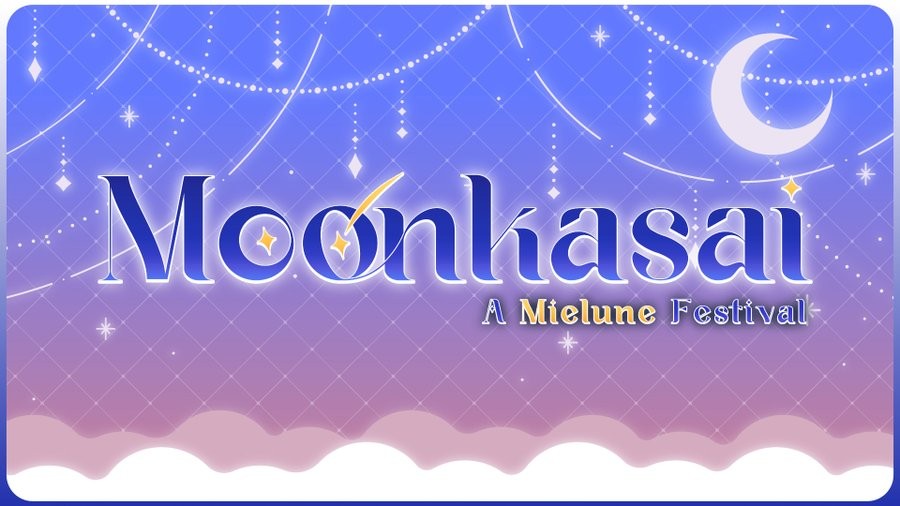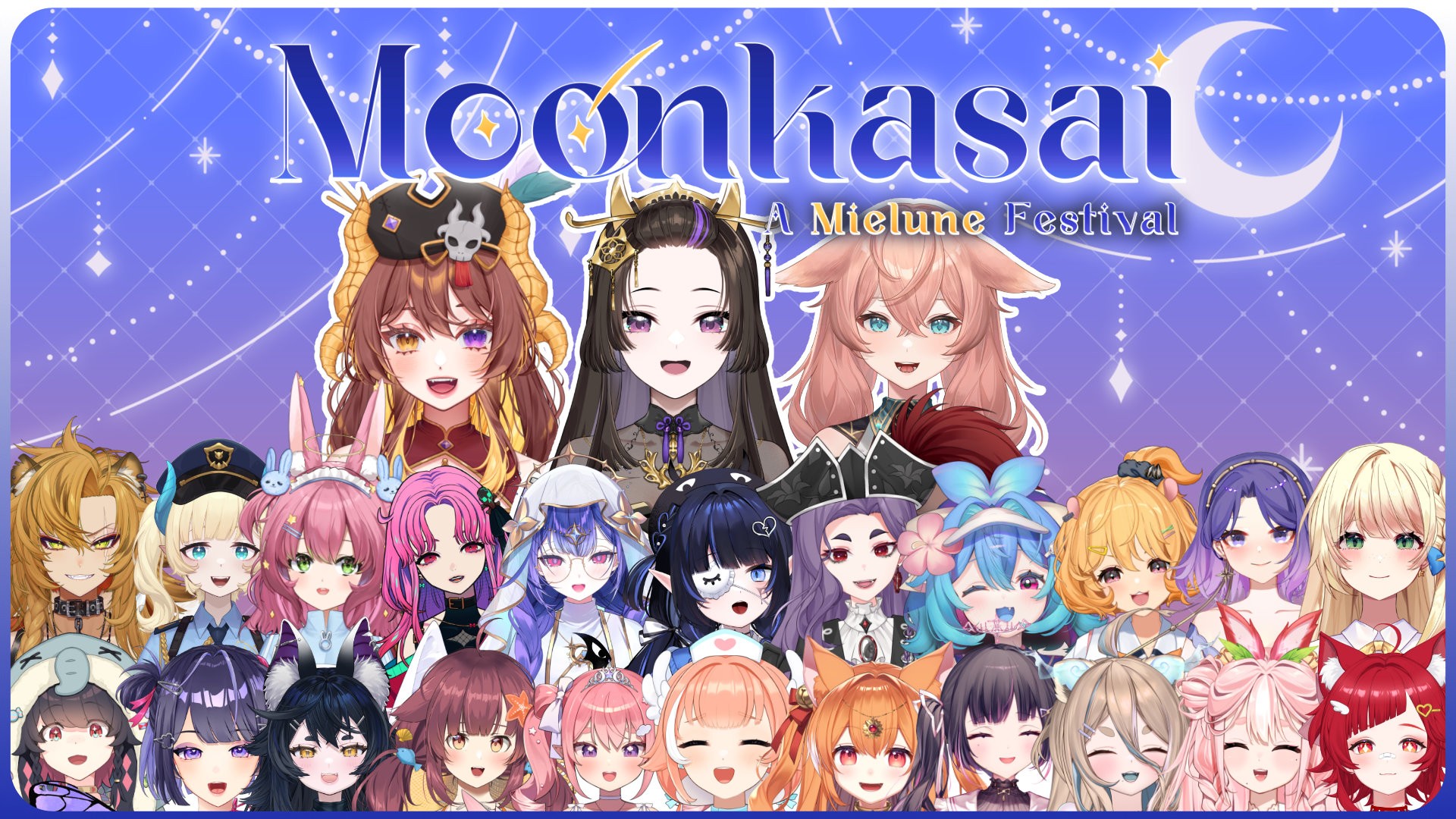
Cover Font in Used - Moonkasai
FONT IN USED: SUIKA
Yuno Hanaki explores visual expression through a blend of illustration, color, and digital composition—creating works that feel both playful and atmospheric. Each piece carries a distinct personality, balancing spontaneity with a refined visual rhythm.
Set in Suika, the typography enhances this expressive direction with a soft, rounded character and vibrant tone—supporting creative visuals while maintaining clarity across digital media.
Yuno Hanaki 🪭👹華鬼結望 【Mie☽une】Used Suika